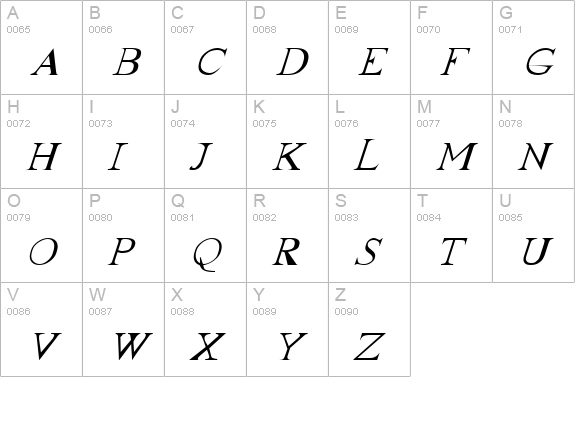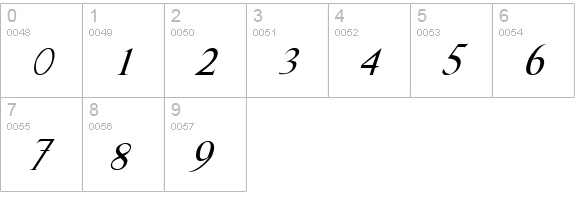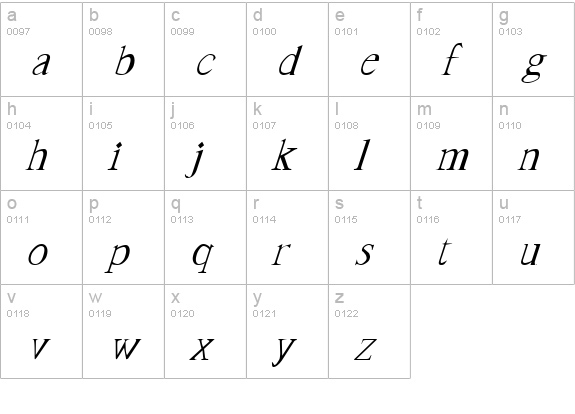
FrankTimes Italic Font Details
FrankTimes Italic is a distinctive, italic variant in the FrankTimes typeface family \xE2\x80\x94 well suited to design and typography projects.
FrankTimes Italic is a sophisticated and elegant font that exudes a sense of timeless style and refinement. Its slanted design adds a touch of flair and modernity to any text, making it perfect for projects that call for a touch of sophistication. The delicate curves and graceful lines of FrankTimes Italic make it a versatile choice for a wide range of design applications, from invitations and wedding stationery to branding and advertising. What makes FrankTimes Italic even more appealing is that it is available for free download at FontsMarket.com. This means that you can easily access this beautiful font without any cost, allowing you to enhance your projects with a touch of elegance without breaking the bank. Don't miss out on the opportunity to elevate your designs with the timeless beauty of FrankTimes Italic - download it for free today at FontsMarket.com.